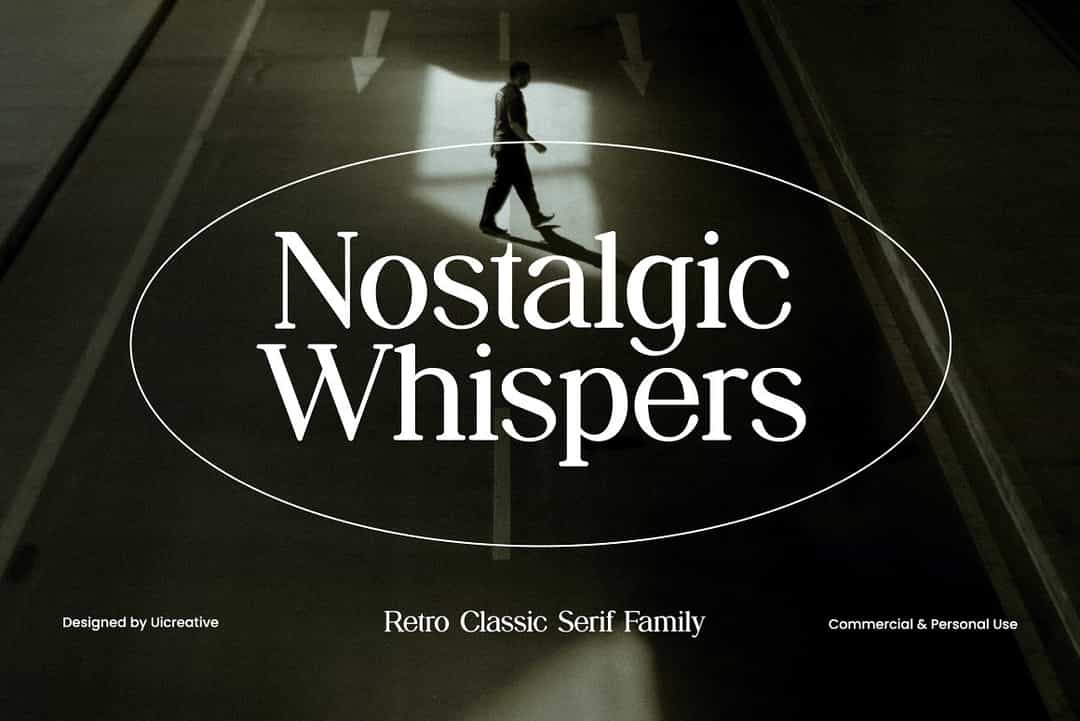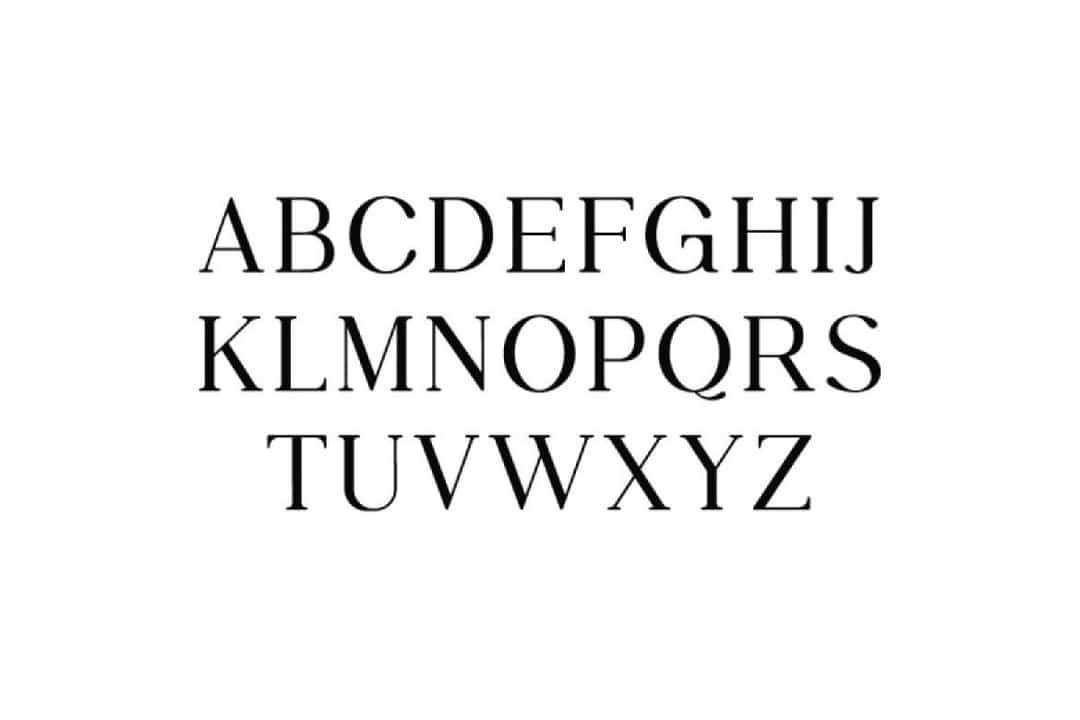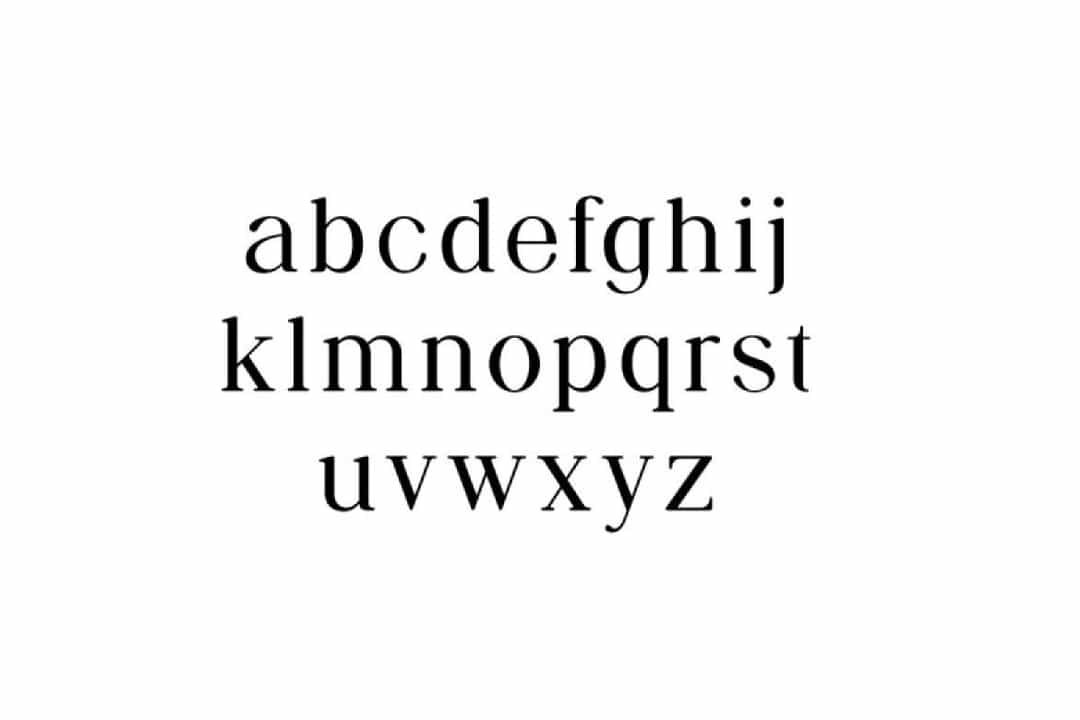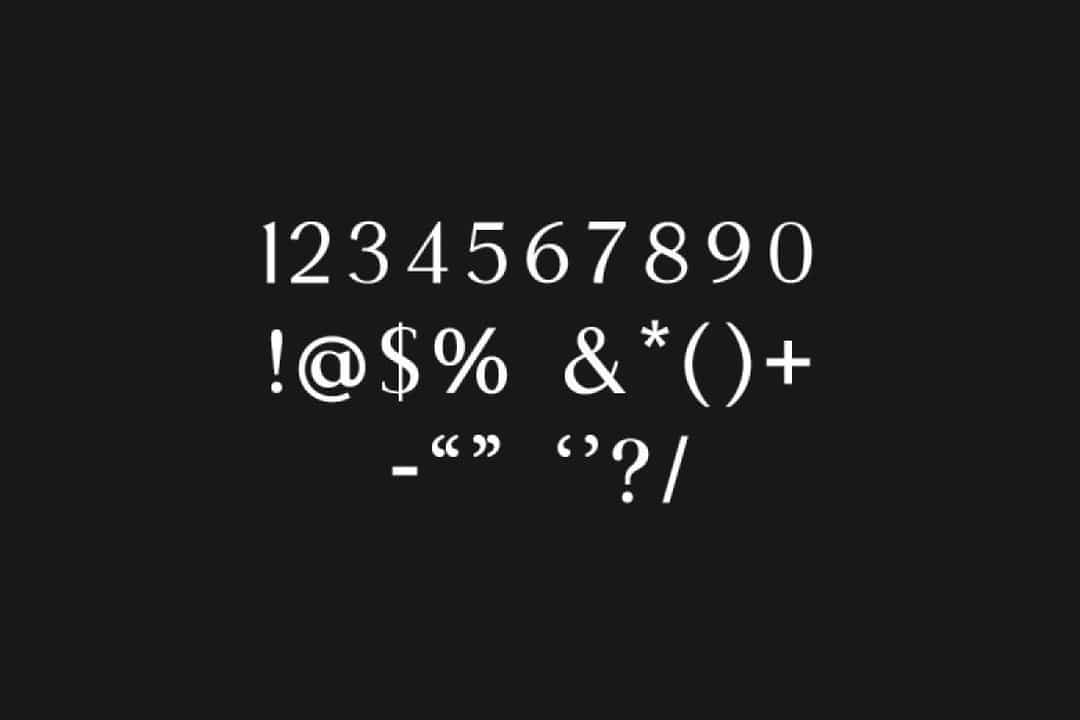
Nostalgic Whispers by UICreative is an elegant serif typeface family designed with clean lines. Perfect for use across various design applications such as logos, signatures, stationery wedding invitations, typography quotes and book, magazine covers, headers for websites, branding purposes, clothing packaging designs etc; as well as branding with feminine or masculine qualities (branding of fashion related editorial designs etc).